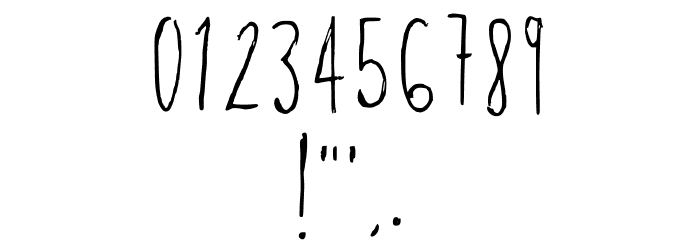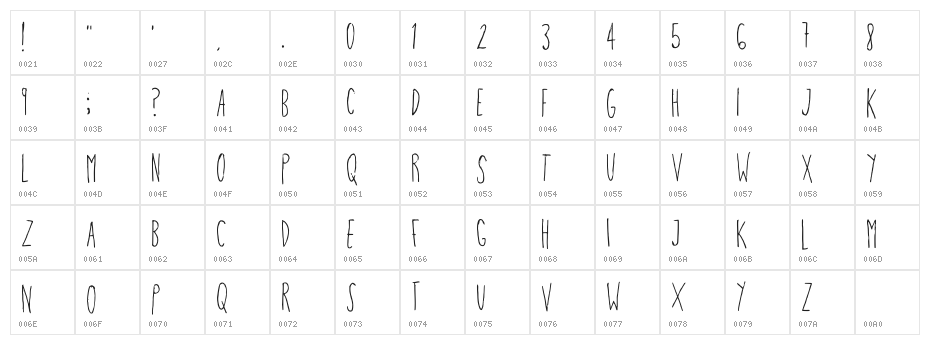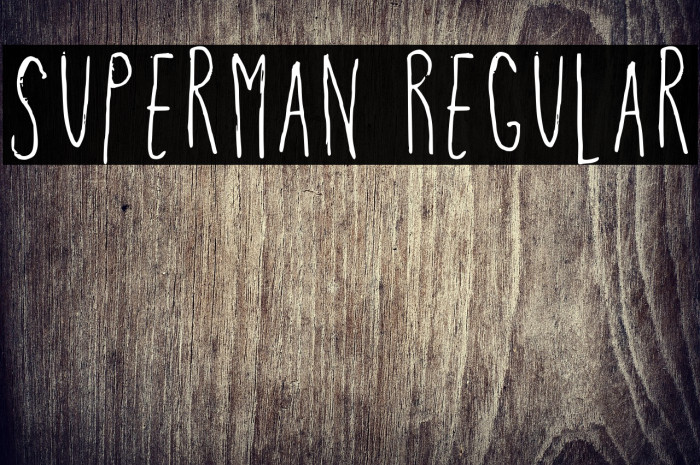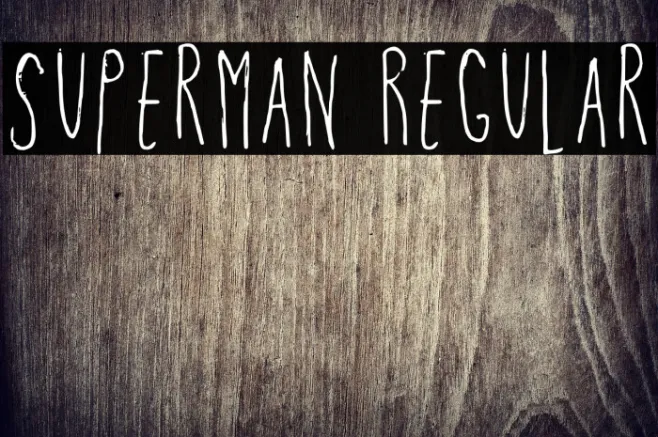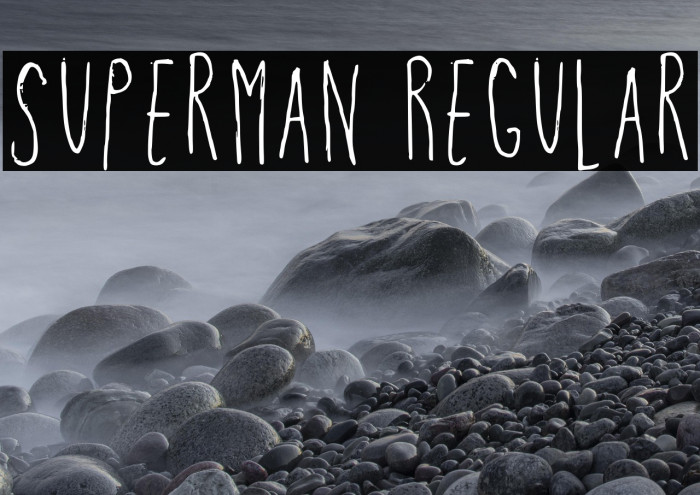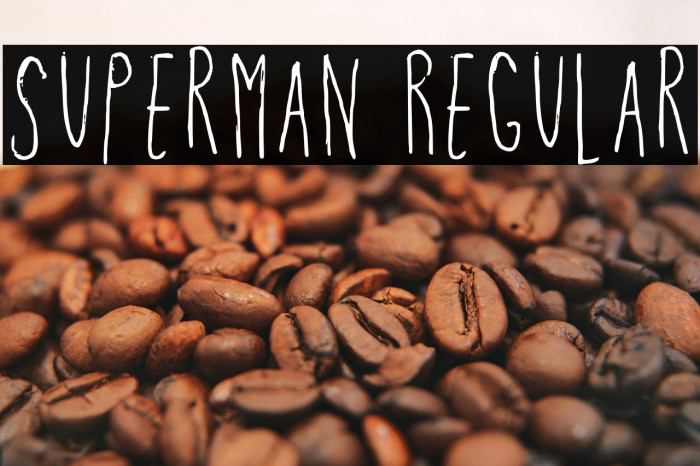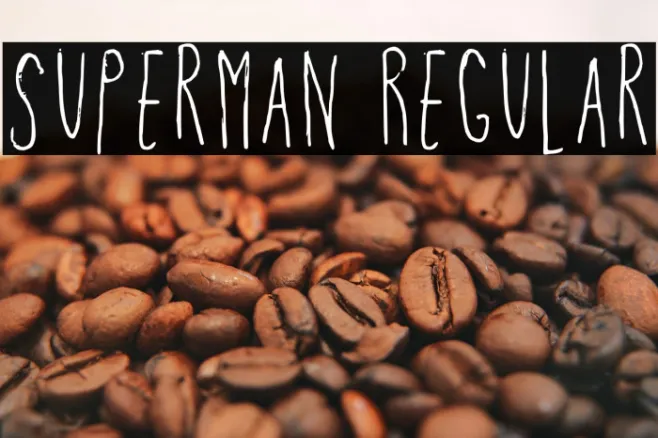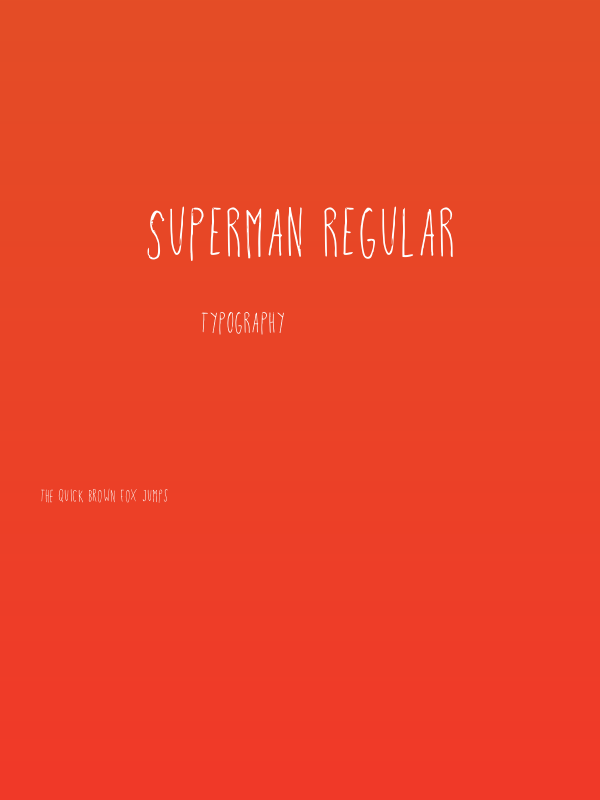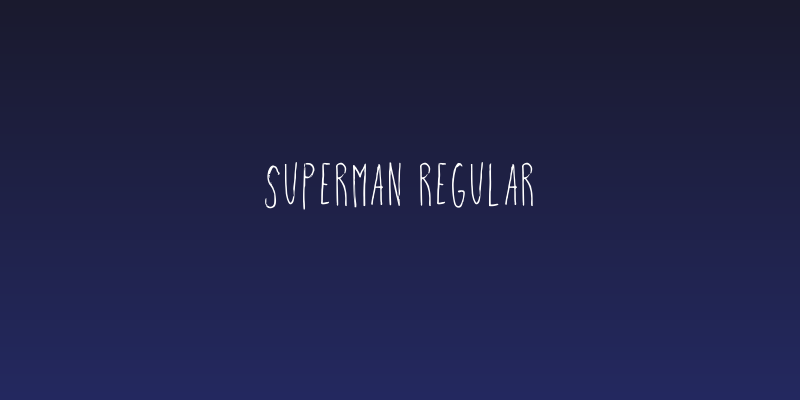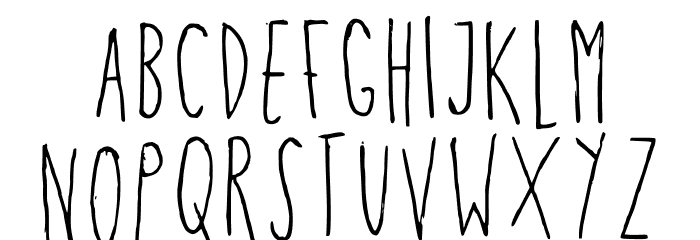
Superman Regular Font
Superman Regular Description
This font features a hand-drawn, organic style with tall, narrow letters that give it a unique and artistic appearance. The strokes are uneven, adding a sense of whimsy and character. The uppercase and lowercase letters maintain a consistent height, contributing to a cohesive look. The numbers and special characters follow the same design principles, ensuring uniformity across all glyphs. This font's playful yet sophisticated style makes it versatile for various creative projects.
| Overall Style | Artistic |
| Use Case | Headlines, Artistic projects, Branding |
| Proposed Projects | Ideal for creative projects such as greeting cards, posters, children's books, and artistic branding. |